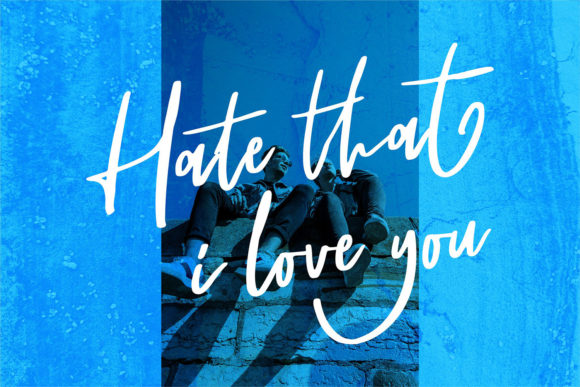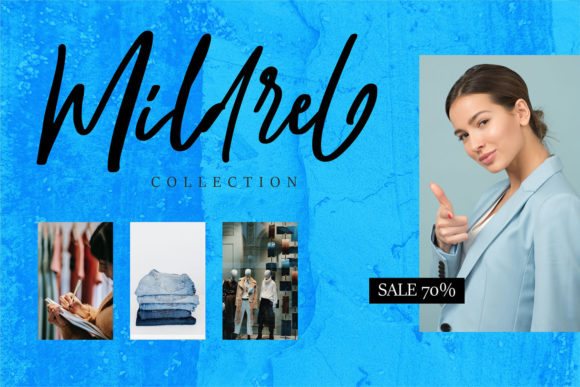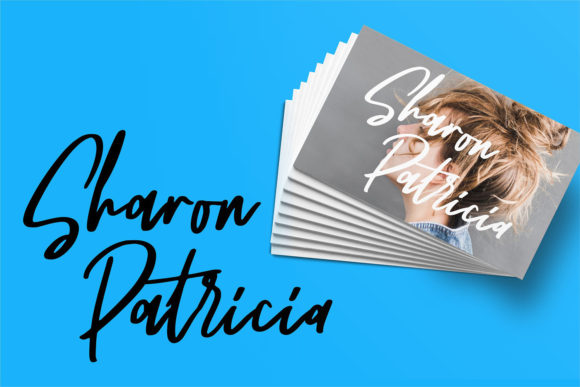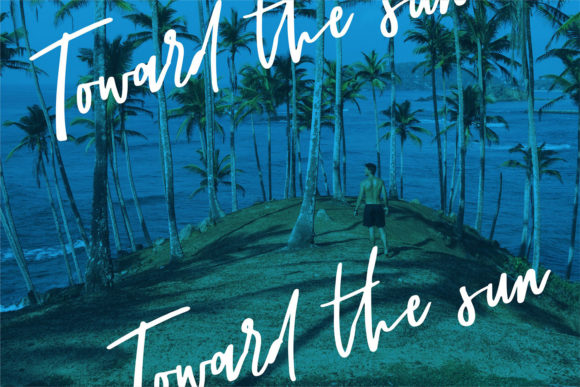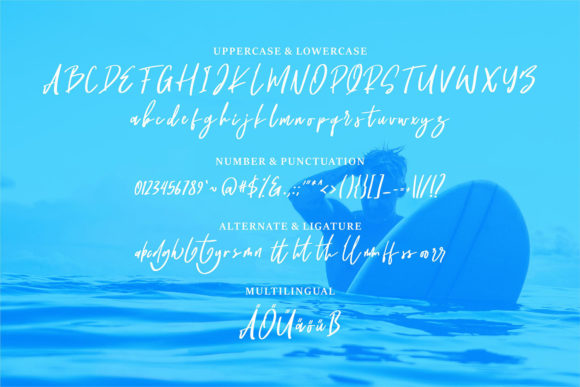
Introduction to Rosalint Font
Have you ever stared at a blank page, struggling to find the perfect words to express your creativity? For many designers, this is a familiar feeling, especially when working on a high-stakes project. But what if you had the perfect tool to spark inspiration and bring your vision to life? Enter the Rosalint Font, a charming script font that’s sure to elevate your creative project to new heights.
With its relaxed, whimsical style, the Rosalint Font is the perfect addition to any designer’s library. Whether you’re working on a personal project or a commercial design, this font has the potential to take your creation to the next level. And the best part? It’s available for free download, making it an accessible resource for designers of all levels.
So why is the Rosalint Font so valuable for designers? For one, its high-quality design and transparent background make it easy to integrate into any project. Plus, its versatility means it can be used for a wide range of creative projects, from branding and marketing materials to editorial content and more.
Rosalint Font
- High-quality font design with a transparent background, ideal for creative projects requiring a subtle texture.
- Features a unique, hand-drawn design with a distressed effect, adding a touch of elegance to any design project.
- Perfect for use in print and digital media, including posters, flyers, business cards, and web design.
- Can be easily customized and manipulated using font editing software, allowing designers to create unique variations.
Honest Review: Rosalint Font
I recently had the opportunity to work with the Rosalint Font on a creative project, and I must say it’s been a game-changer. The free download was a major plus, and I was blown away by the high quality of the font.
One of the things I love about the Rosalint Font is its versatility. It’s perfect for any design project that requires a touch of elegance and sophistication. The transparent background is a nice touch, making it easy to layer and combine with other design elements.
- What works well: ✨ Beautifully crafted letters, perfect for headings and titles ✨ Easy to use and customize ✨ High-quality design resource
However, I did encounter a few limitations with the Rosalint Font. The font family is relatively small, and I found myself wishing for more variations to choose from. Additionally, the font may not be the best choice for projects that require a bold, statement-making font.
- Limitations: ⚠️ Limited font family options ⚠️ May not be suitable for bold or statement-making projects
Overall, I’m thoroughly impressed with the Rosalint Font. It’s a high-quality design resource that’s perfect for any creative project. While it may have a few limitations, I highly recommend it to designers and artists looking for a beautiful and elegant font.
Tips for Getting the Most Out of Rosalint Font
For optimal results, use the Rosalint Font on a high-quality design project with a transparent background.
Experiment with different font sizes, colors, and styles to create a unique and eye-catching design.
The Rosalint Font is ideal for creative projects, such as:
- Infographics and visualizations.
- Marketing materials and promotional campaigns.
- Graphic novels and comics.